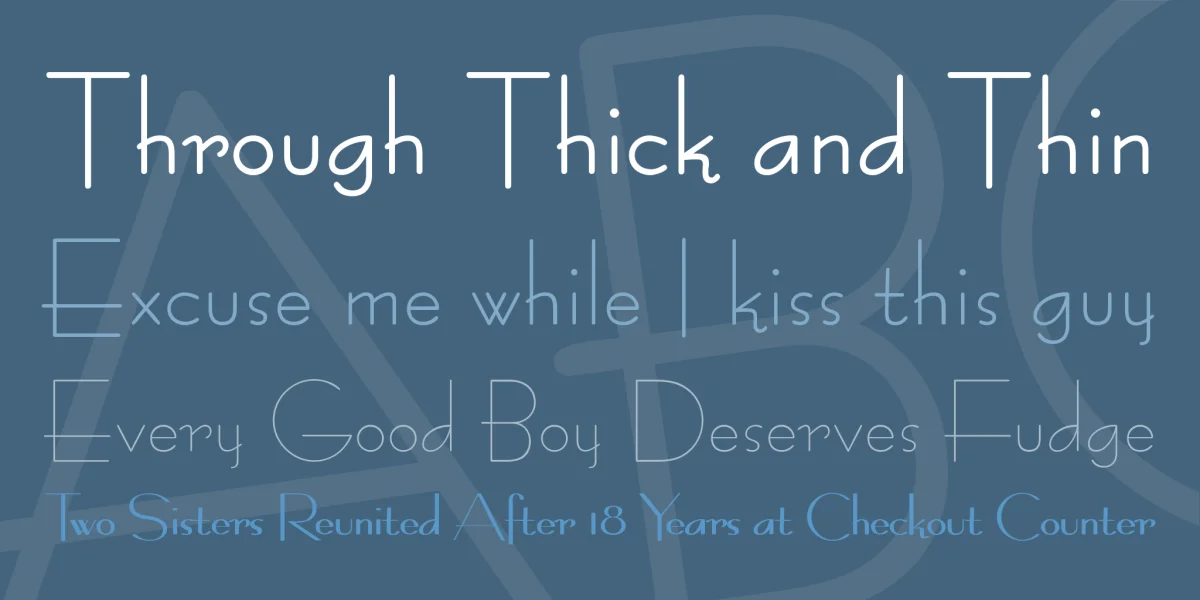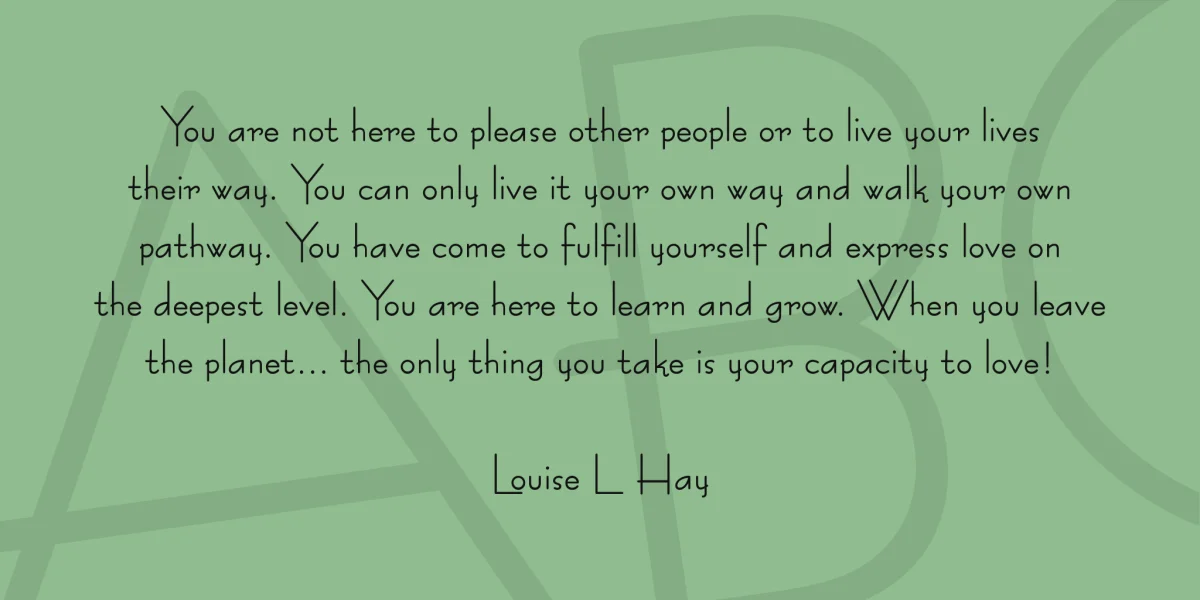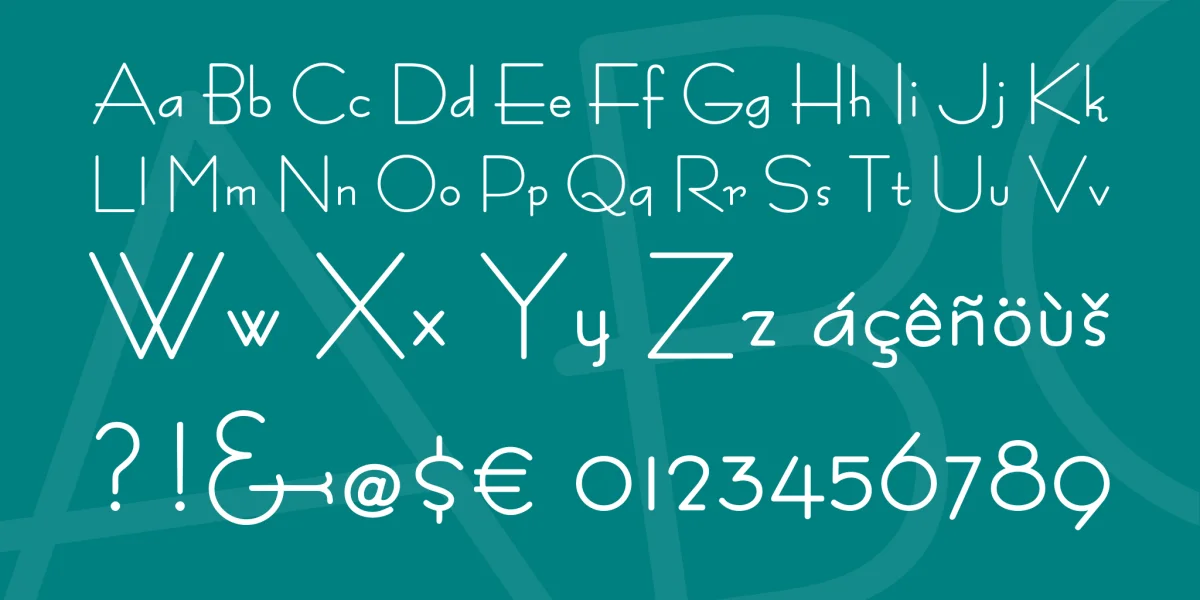
Translated from the original German description: When I put myself to work on a font which is already abundantly available from other suppliers, it always has a reason. Here I am missing some characters, such as the large ß which I would like to see in more and more fonts, as well as a matching € sign. Not to mention the long s and ligatures, characters for Eastern Europe, and certainly Cyrillic.
So I took Lucien Bernhard's Fashion font and redrew the glyphs, then supplemented with many additions. But even this is not enough for me, as the font looked too skinny at small font sizes. So I then created two little bolder fonts for smaller design sizes. And while I was at it, I also made an attempt to develop an organic Sans with the "Contrast" family member.